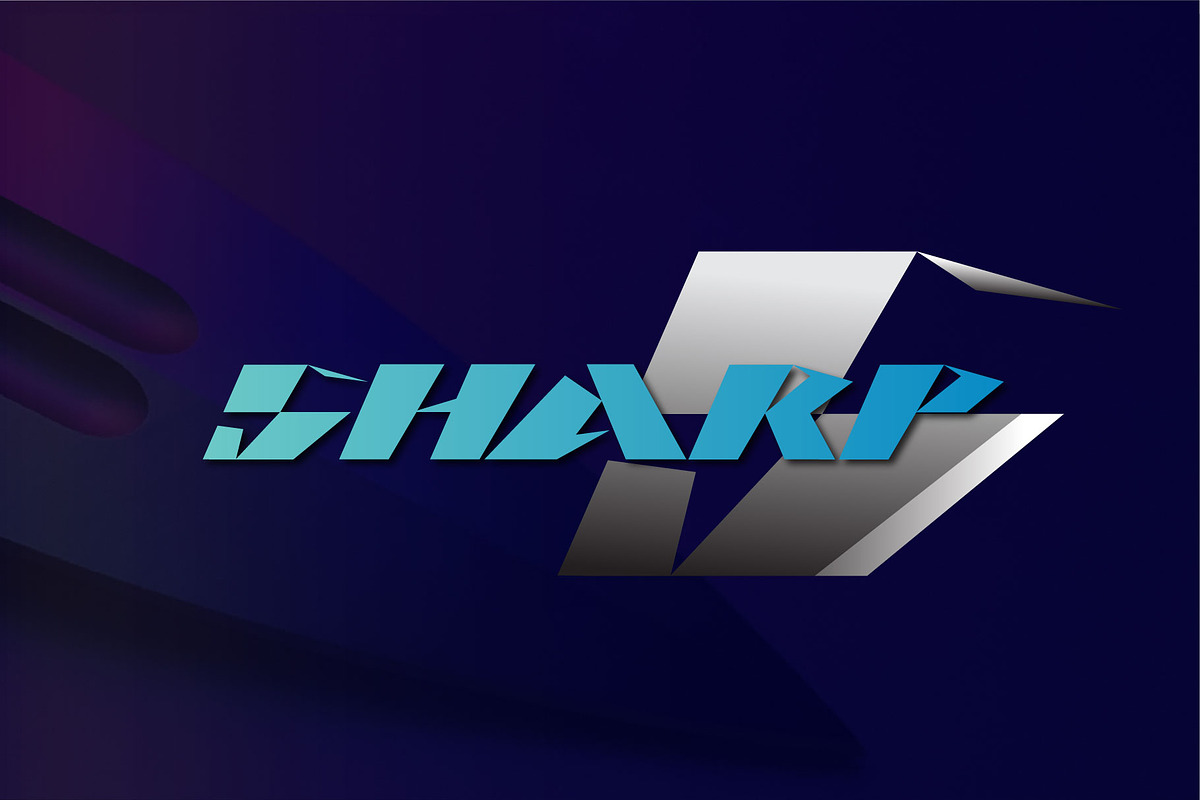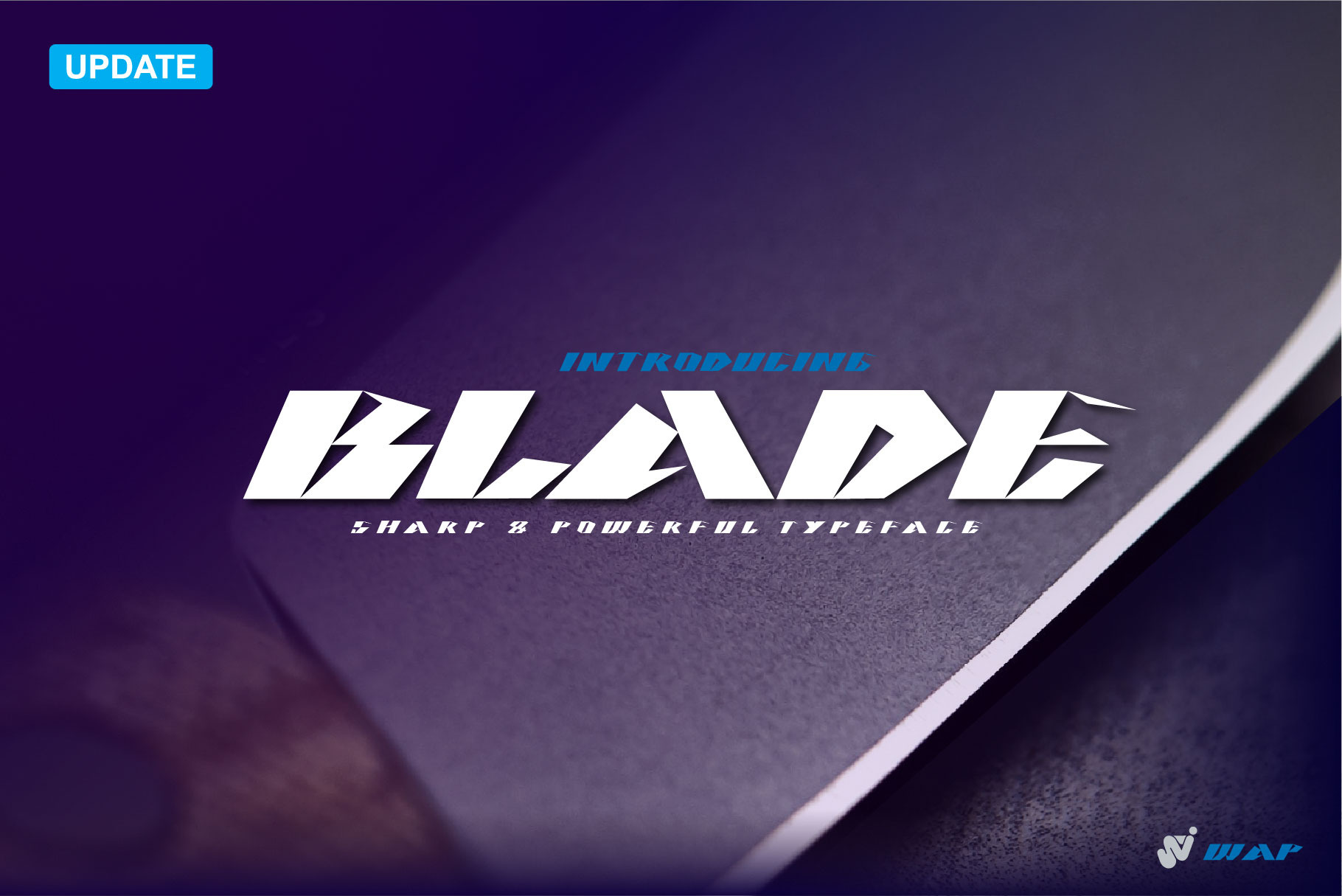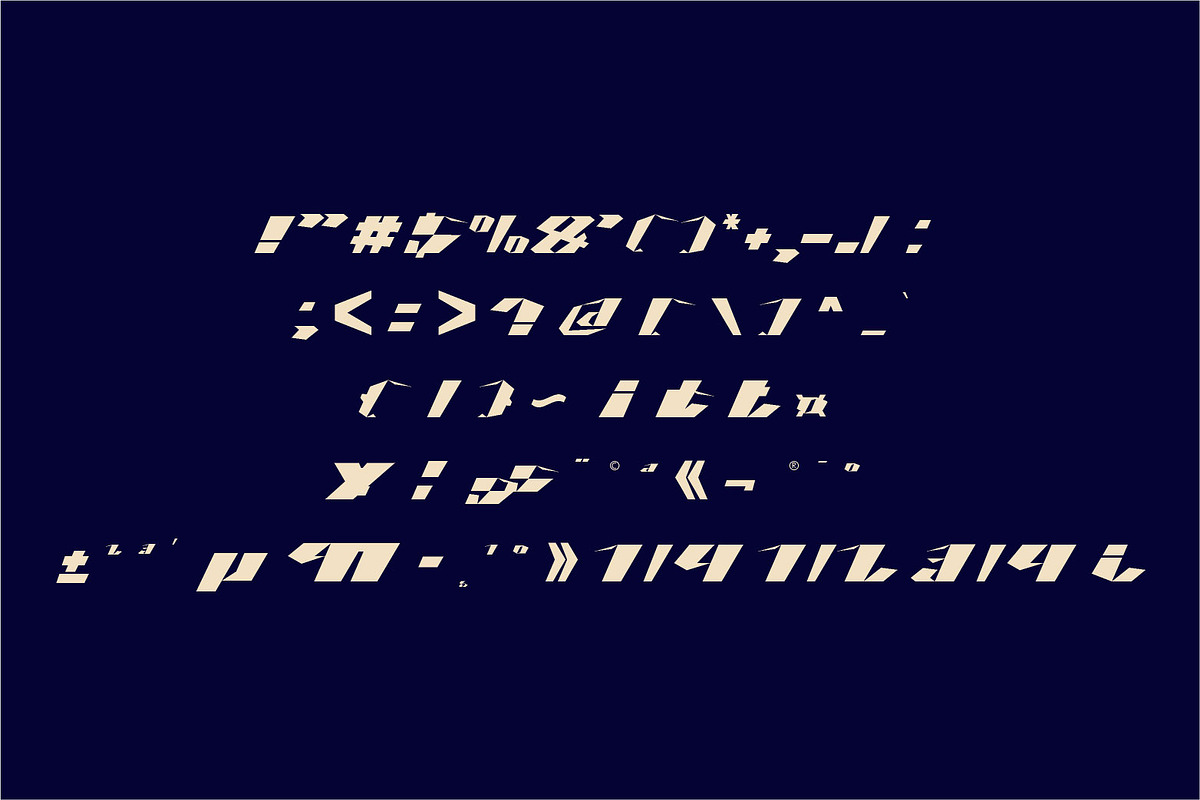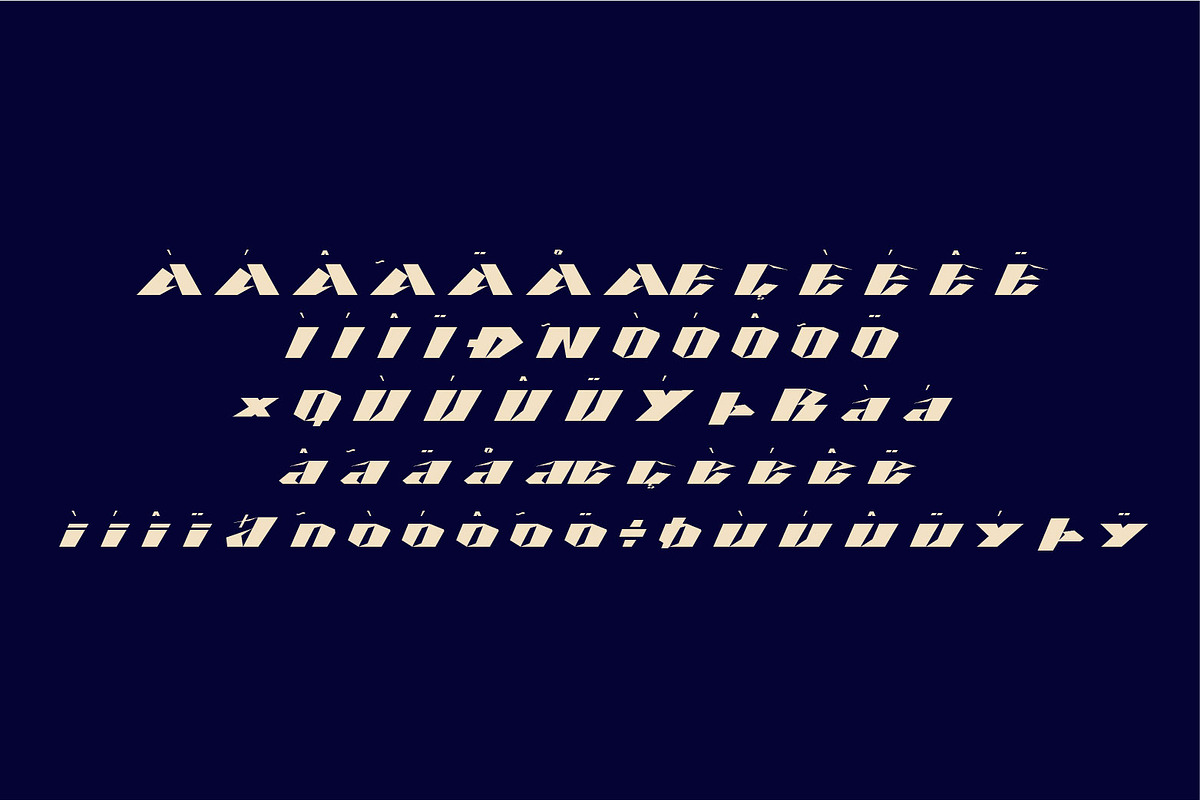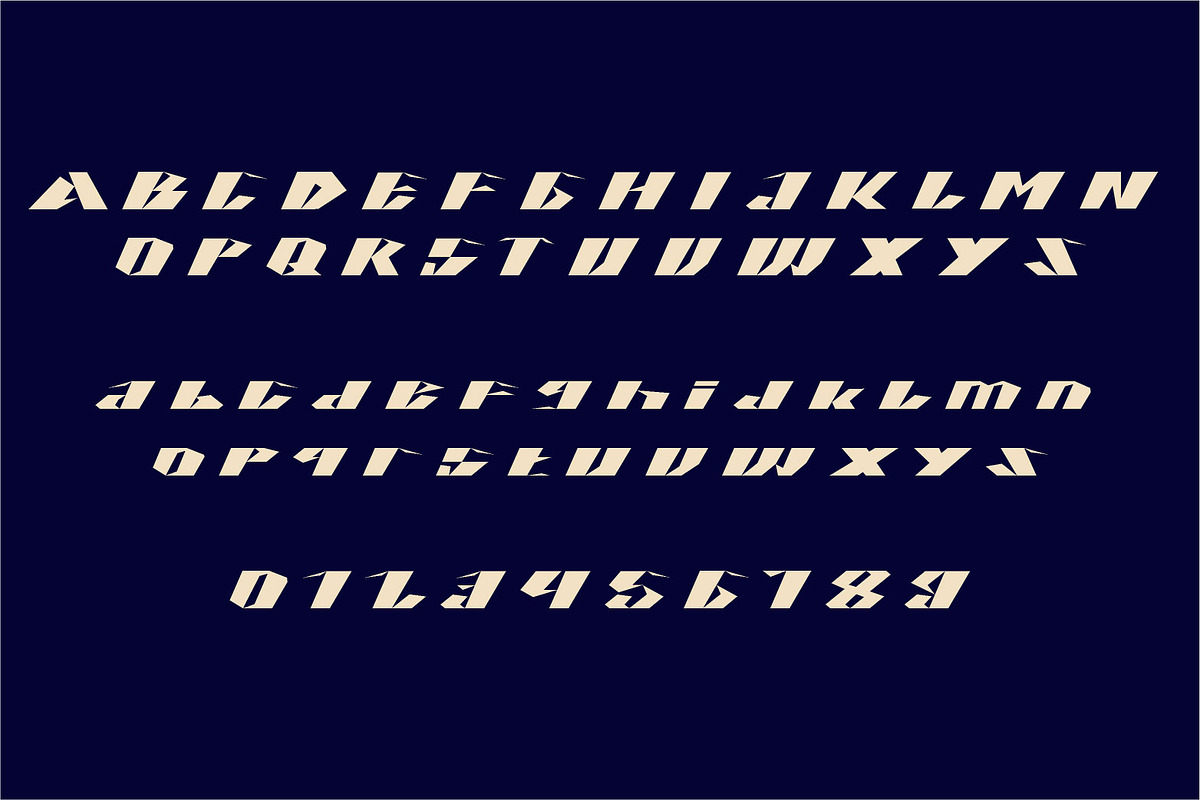
BLADE sharp font
Blade is a bold and authentic display font. It celebrates abstract shapes in all their eclectic brilliance. Add this font to any racing or speed related design idea and notice how it will make them stand out!